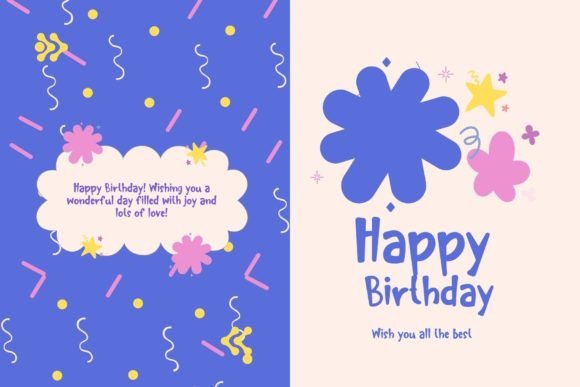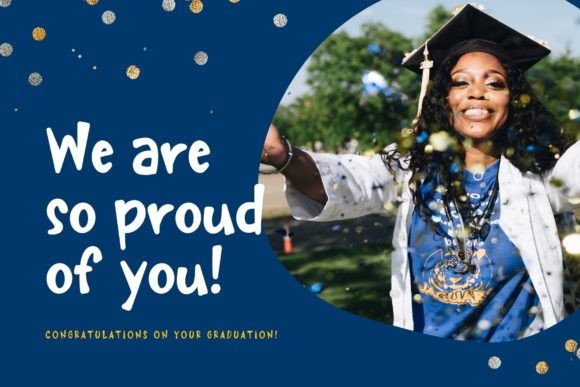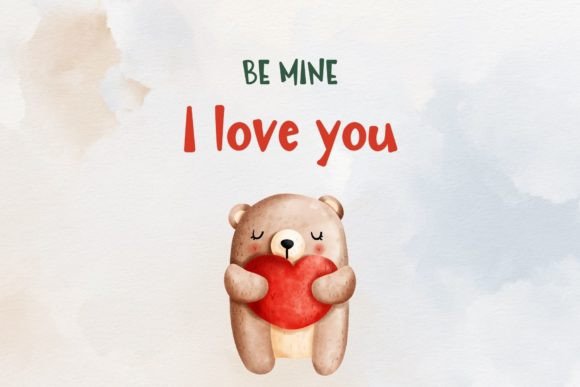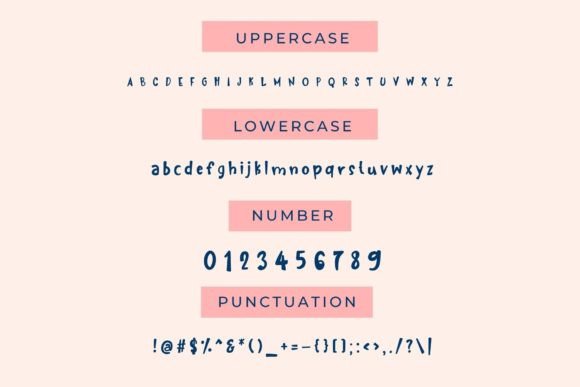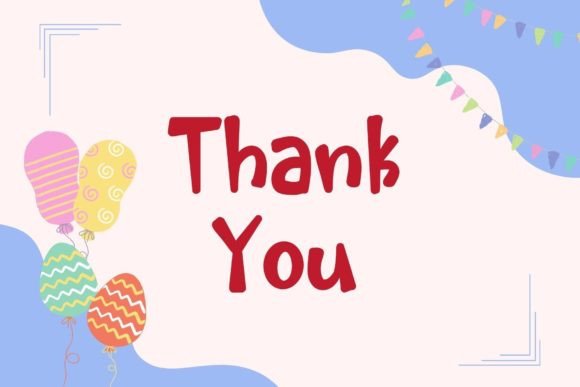
The First Day Font: A Playful and Authentic Addition to Your Design Toolkit
I’ll never forget the design project that led me to discover the First Day font. I was working on a branding project for a children’s party planning service, and I was struggling to find a font that captured the playful, carefree spirit of the brand. The client wanted something that felt handmade, yet still professional. After hours of scouring font libraries and testing out different options, I stumbled upon First Day. It was love at first sight! ✨
An Honest Review of First Day Font
- ✨ Playful and whimsical: First Day font embodies a sense of playfulness and authenticity that’s perfect for designs that need a personal touch.
- ✅ Highly legible: Despite its handwritten feel, First Day font is surprisingly easy to read, even at smaller sizes.
- 💕 Versatile: This font can be used for a wide range of projects, from blog posts and logos to invitations and greeting cards.
While First Day font is an amazing addition to any design toolkit, it’s not without its quirks. Here are a few things to keep in mind:
- ⚠️ Limited use in formal designs: While First Day font is perfect for playful designs, it may not be the best choice for more formal projects, such as corporate branding or official documents.
- 🤔 Some glyphs may require adjustment: Depending on the design, some glyphs (such as the ampersand or exclamation mark) may require adjustment to fit seamlessly with the rest of the text.
The Backstory Behind First Day Font
The story behind First Day font is one of creativity and passion. According to the font’s designer, it was inspired by the idea of capturing the magic of a child’s first day of school. The designer wanted to create a font that felt handmade, yet still professional. The result is a font that’s both playful and authentic.
| Font Name | First Day Font |
| Author | Brown Cupple Fonts |
Q: What type of designs is First Day font best suited for?
A: First Day font is perfect for designs that need a playful, authentic touch, such as blog posts, logos, branding, ads, invitations, greeting cards, and more.
Q: Is First Day font easy to read?
A: Yes, First Day font is surprisingly easy to read, even at smaller sizes.